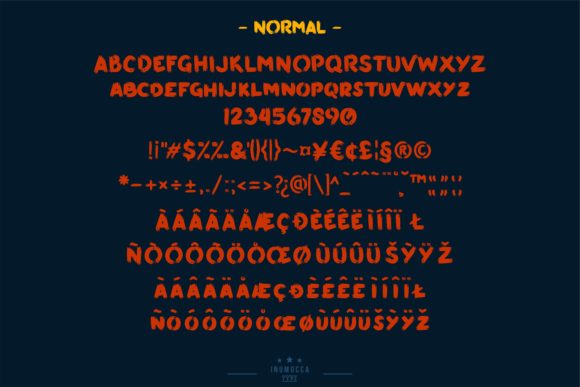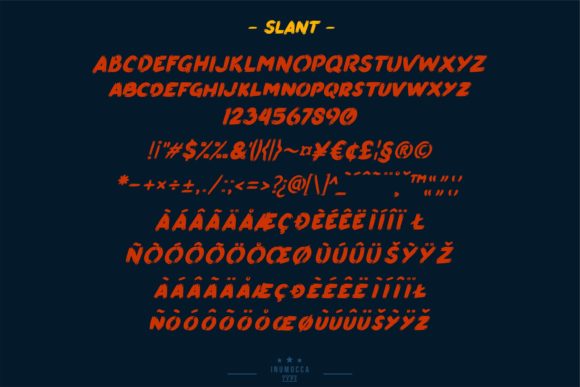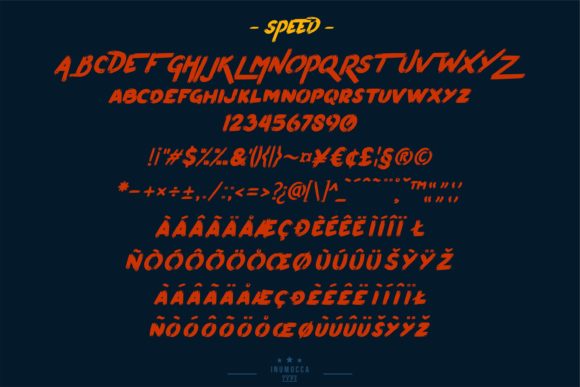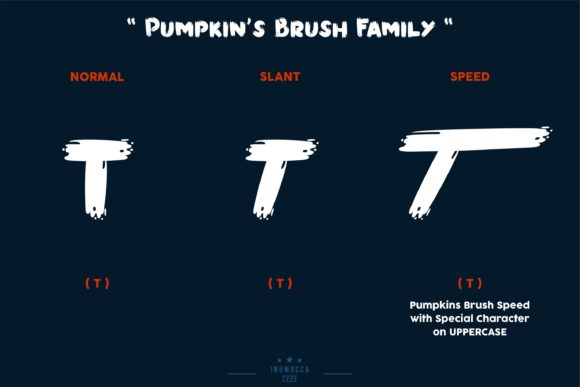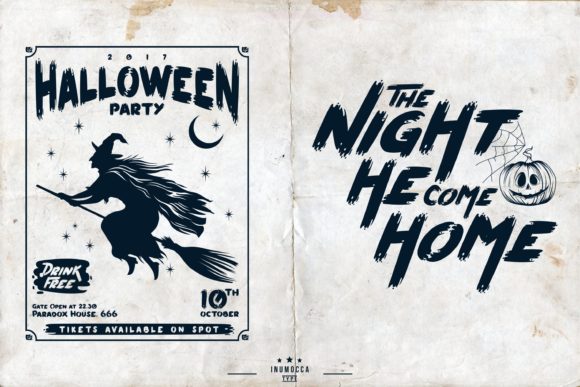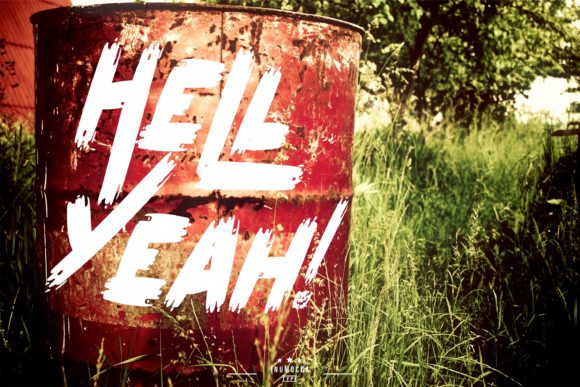
Introduction to Pumpkin’s Brush Font
Pumpkin’s Brush is a fun and thick lettered display font.
Friendly and cool, this font will look great on a variety of informal designs .
Key Features of Pumpkin’s Brush Font
Why Choose Pumpkin’s Brush Font?